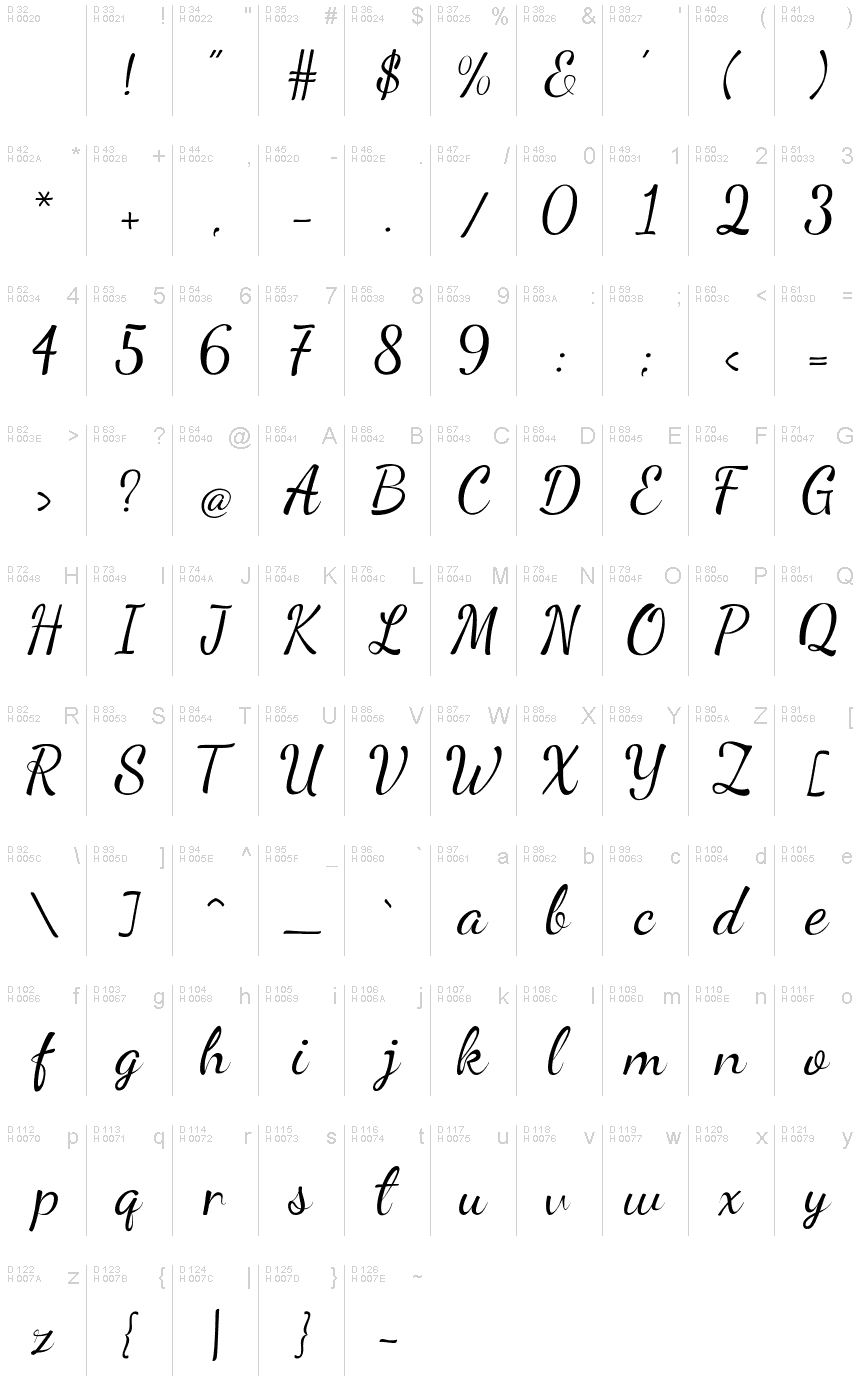
Bellaif
Bellaif, the stunning calligraphy font designed by Rangga Putra Budi Pratama, is the perfect choice for designers looking to add an elegant touch to their projects. With its semi-light weight, Bellaif exudes grace and sophistication in every stroke. This beautiful font is suitable for a wide range of projects, including wedding invitations, brand logos, greeting cards, and more. Its flowing lines and intricate details make it a standout choice for any project that requires a touch of class. Let Bellaif elevate your designs today and experience the beauty of calligraphy like never before.